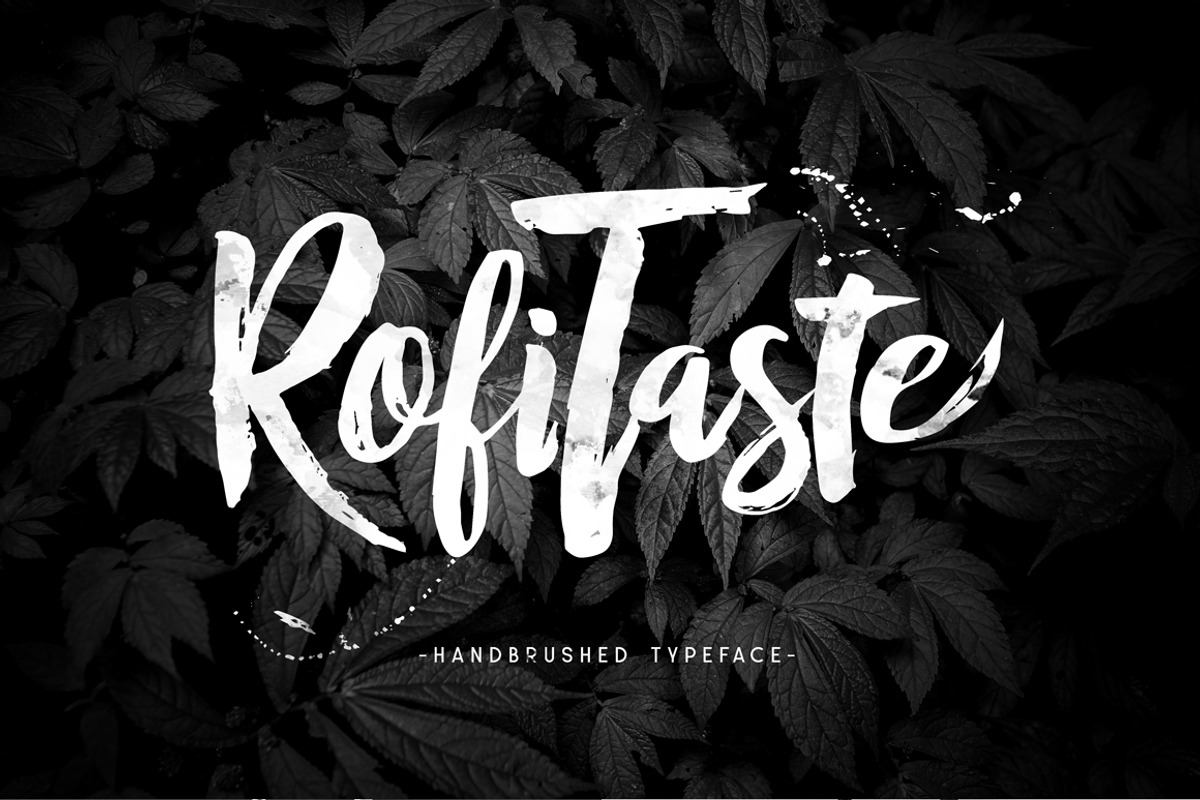
Please note, to use this font for commercial purposes, you must purchase the full version. RofiTaste is a modern and elegant typeface that combines sleek lines with a touch of artistic flair. Perfect for logos, branding, posters, and creative projects, this font adds sophistication and style to your designs. Whether you're working on a high-end brand, a creative event, or a premium marketing campaign, RofiTaste brings a refined and professional look to your work. Test it out and enjoy free download access for personal use. Experience the stylish beauty of RofiTaste Typeface Free Download before purchasing the commercial license. Add a modern, elegant touch to your designs with RofiTaste.